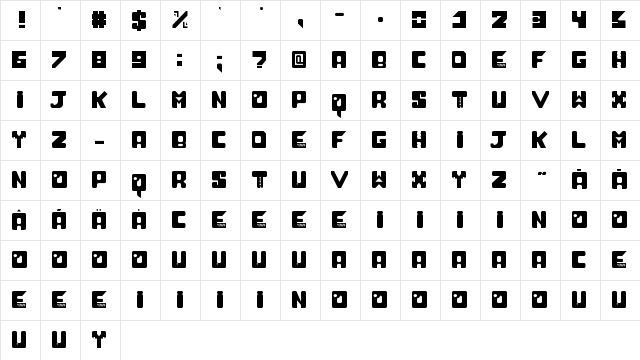
Complete Neo Sci-Fi v2.0 Regular glyph index. Displaying only characters natively supported by Neo Sci-Fi v2.0 Regular font.
Neo Sci-Fi v2.0 has a distinctly futuristic character, with geometric precision and clean angles that feel at home in technology, gaming, and sci-fi contexts.